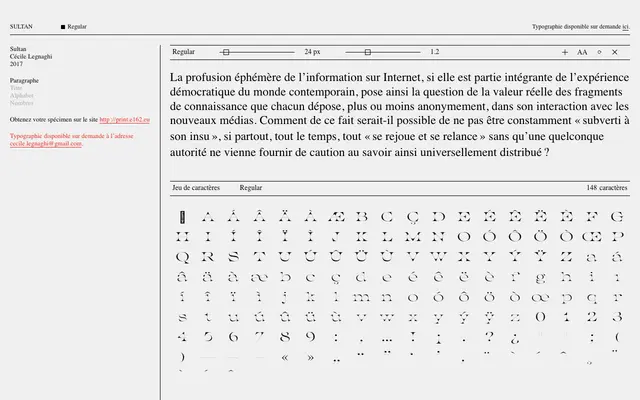
Sultan
E162 · Cécile Legnaghi · 2017
A single-weight text serif by Cécile Legnaghi, available on request from E162's French type foundry.
Designed by Cécile Legnaghi and released in 2017, Sultan is a text serif offered in a single Regular weight covering 148 characters. Available by request rather than through a standard retail channel, it sits within E162's small-batch approach to type publishing. The specimen positions it for editorial and long-form reading contexts.
The specimen text and formal structure suggest a text-oriented serif design; with limited detail available, a transitional serif classification fits the visible letterform rhythm and intended editorial usage.